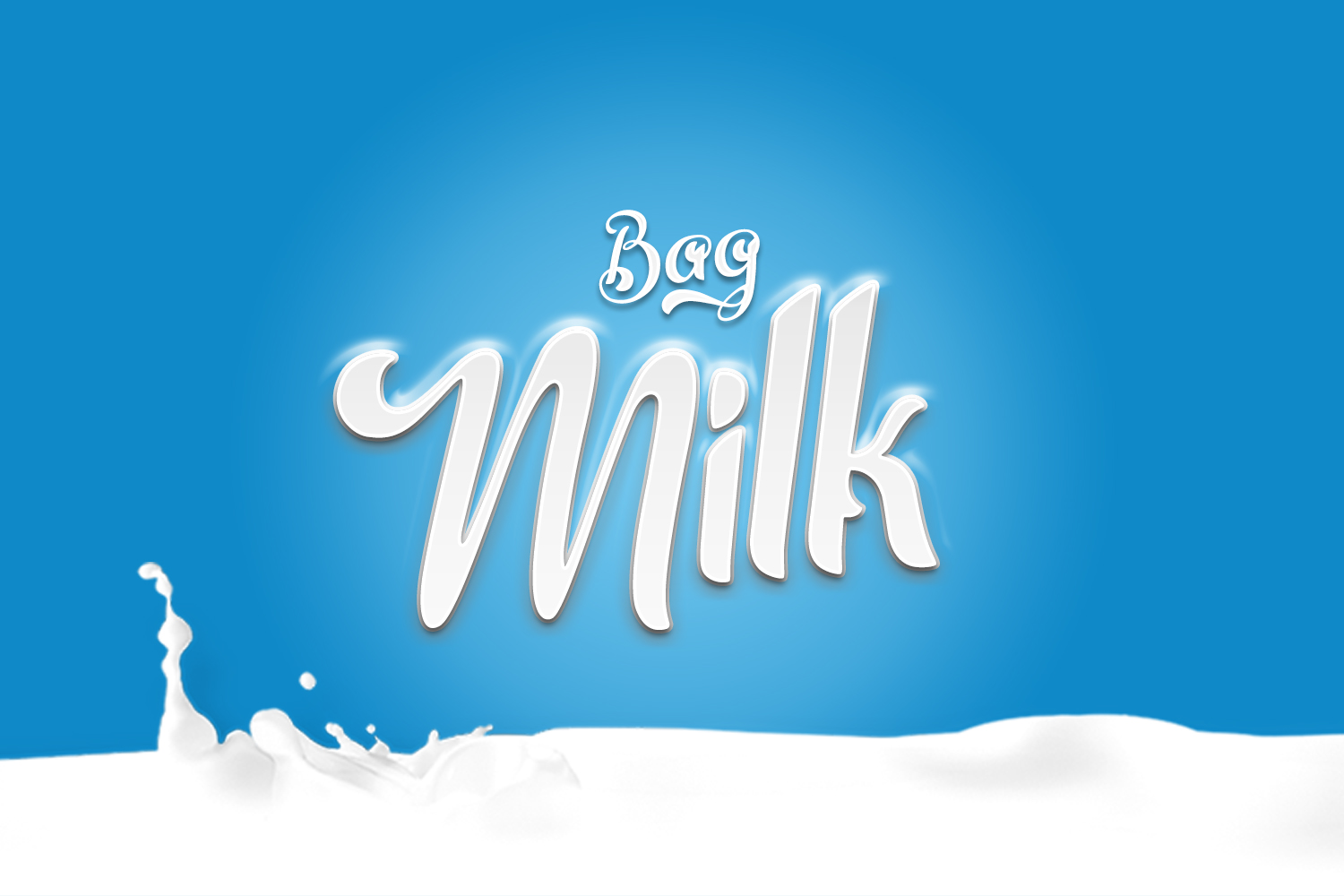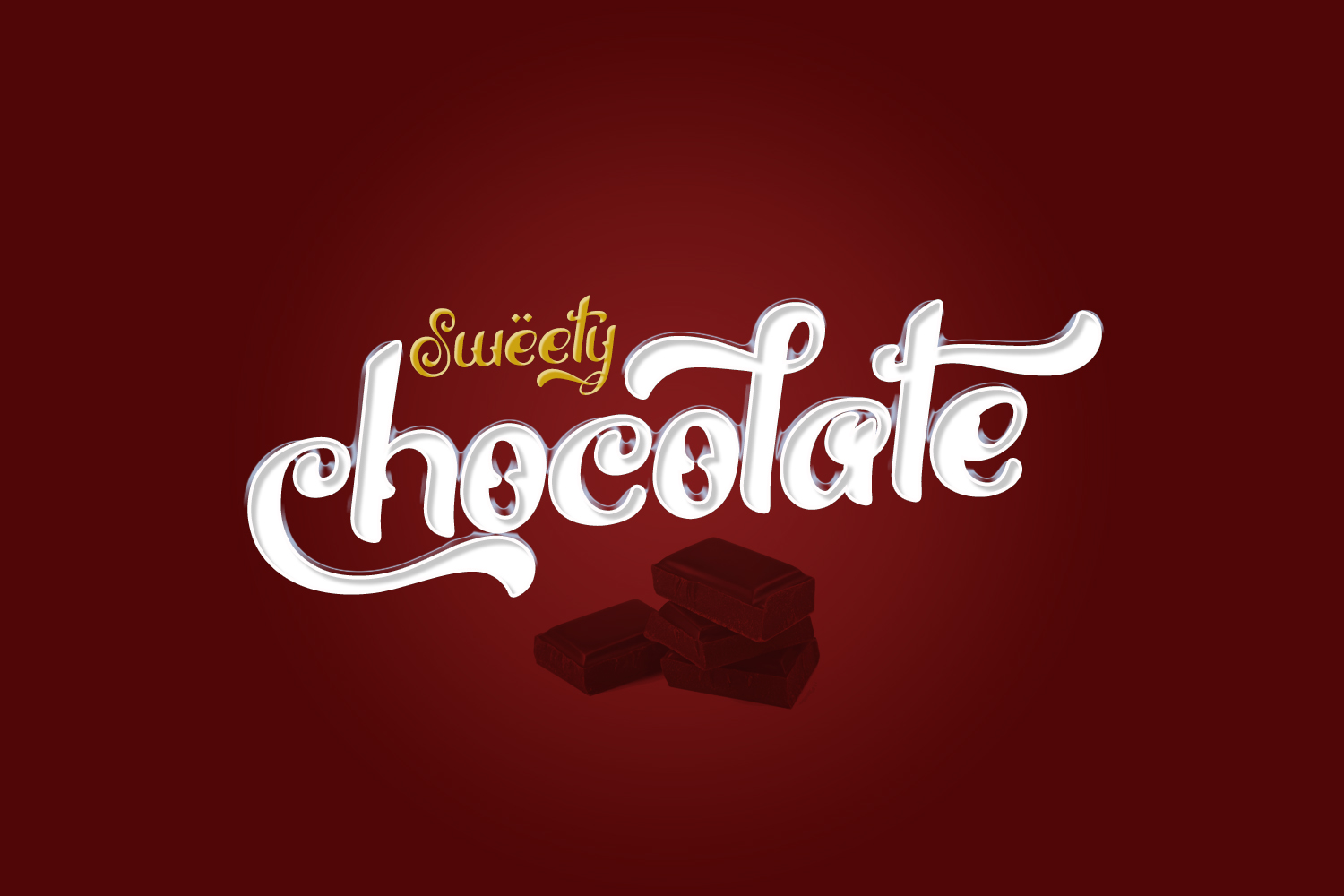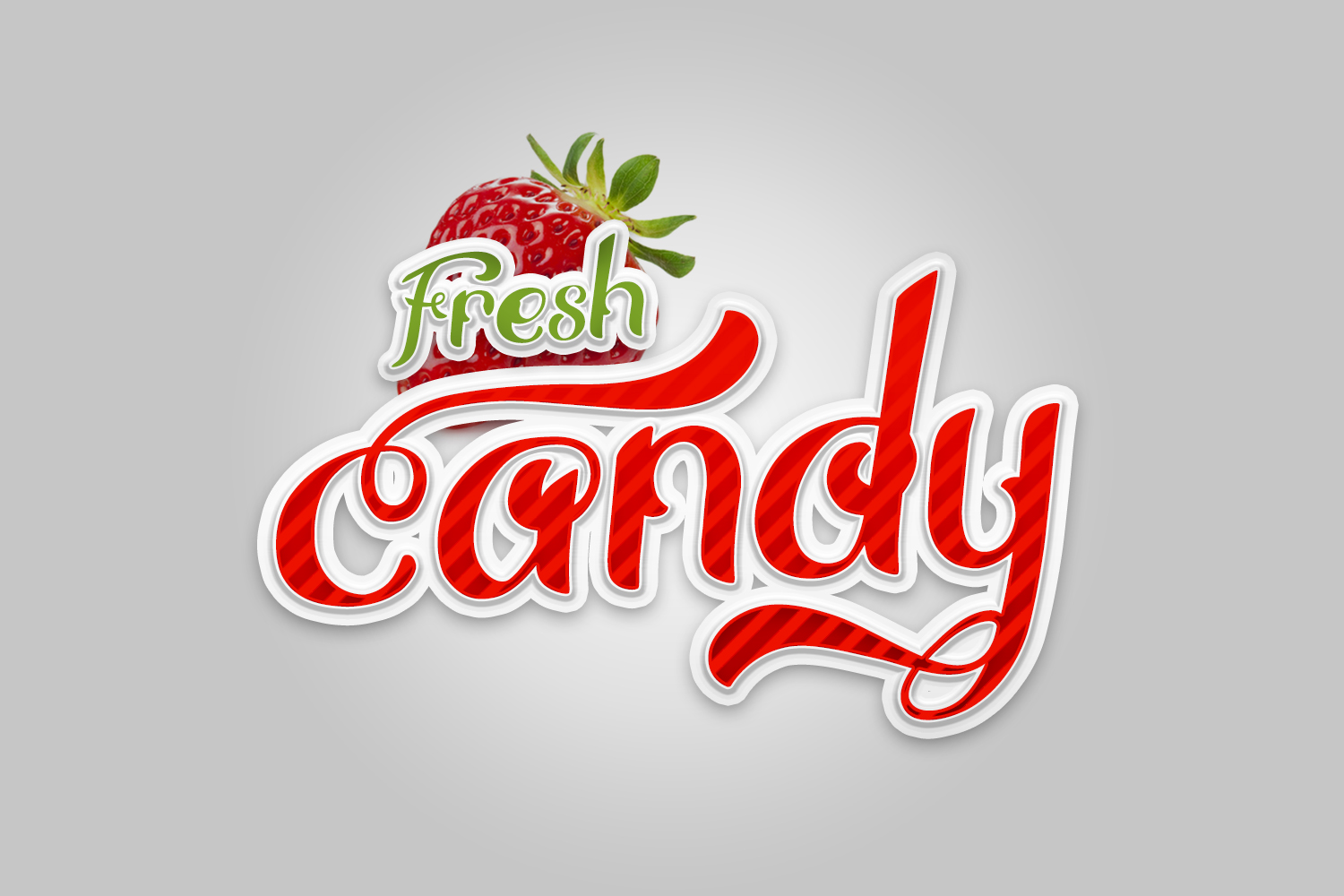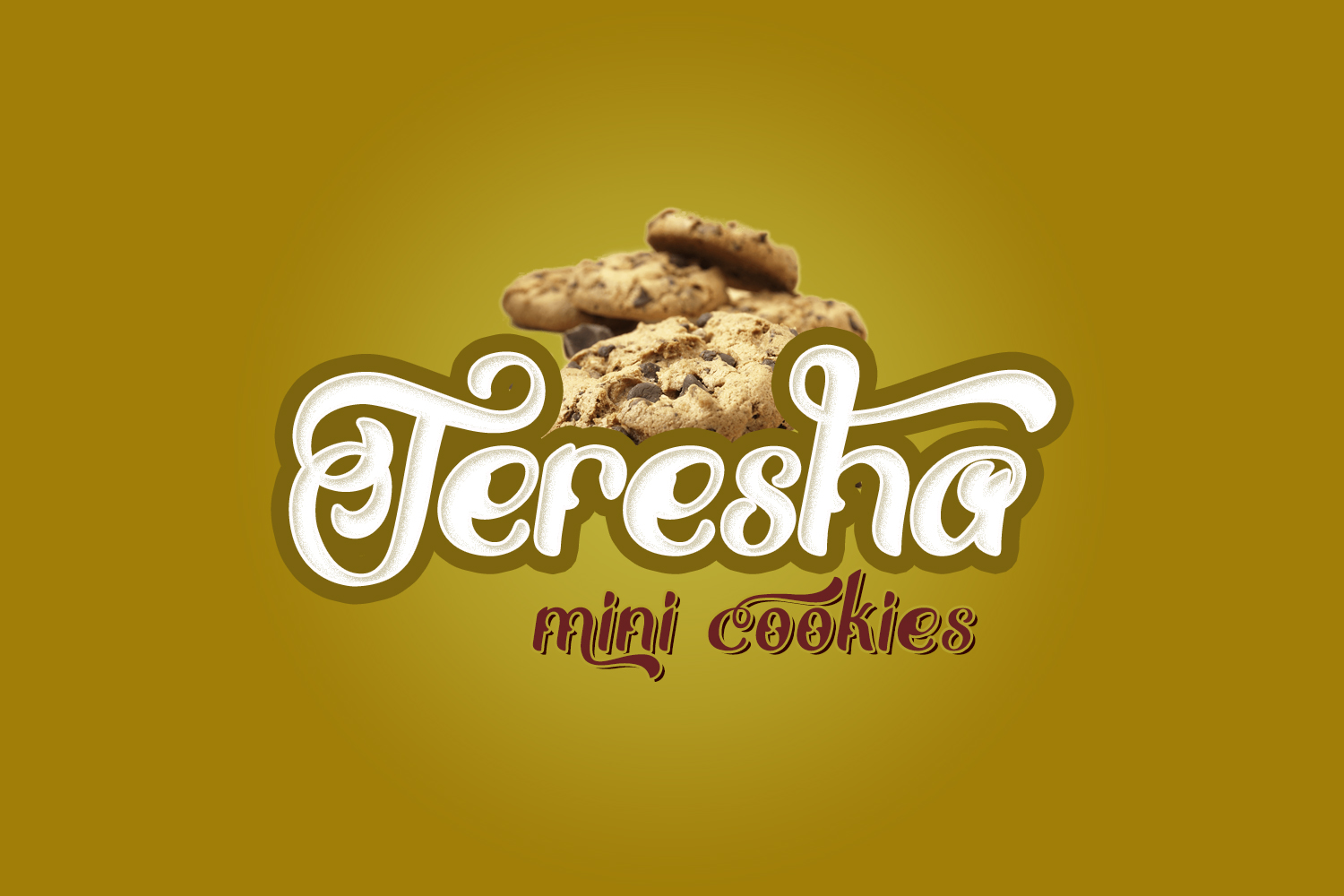
Thrones Font
Really excited to introduce Thrones is a bold classic typeface with gorgeous design and makes this font suitable for your any project design.